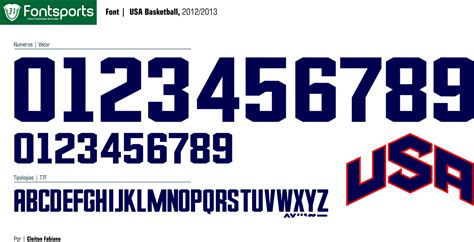
USA Basketball Font: Decoding Its Iconic Look & Style
USA Basketball Font: Decoding Its Iconic Look & StyleWhenever we talk about USA Basketball , guys, it’s not just about the incredible athletes, the dazzling dunks, or the thrilling victories that come to mind. It’s also about a distinct visual identity, and a huge part of that is the USA Basketball font style . This isn’t just any typeface; it’s a critical element that embodies the spirit, power, and prestige of one of the most dominant forces in international sports. Understanding the USA Basketball font style means delving into the design choices that contribute to its instantly recognizable appearance, making it as iconic as the jerseys themselves. It’s a style that speaks volumes, projecting strength, unity, and an unyielding competitive edge. For designers, sports enthusiasts, or anyone fascinated by brand identity, dissecting this font provides a fascinating glimpse into how typography can elevate a brand to legendary status. We’ll explore what makes this font so special, its characteristics, where you might see it, and how it contributes to the overall mystique of Team USA. Get ready to dive deep into the world of basketball typography, because the story of the USA Basketball font style is far more interesting than you might imagine. This exploration will not only satisfy your curiosity but also equip you with insights into effective branding through visual elements, especially within the dynamic realm of sports. It’s truly a masterclass in how simple lettering can convey complex ideas and powerful emotions. So, let’s break it down, piece by typographic piece. You’ll soon see that the seemingly straightforward USA Basketball font style is a carefully curated masterpiece that plays a crucial role in the team’s global appeal and undeniable presence, establishing a visual legacy as profound as its on-court achievements. We’re talking about more than just letters; we’re talking about a visual shorthand for excellence. This robust and commanding visual signature is carefully crafted to evoke a sense of national pride and athletic prowess, becoming synonymous with the team’s triumphs on the international stage. Every curve, every line, and every bold stroke in the USA Basketball font style works in concert to project an image of undeniable strength and unwavering determination, truly a testament to thoughtful design. From official merchandise to digital campaigns, the consistent application of this distinct USA Basketball font style ensures that the brand remains cohesive and impactful, reinforcing its status as a global leader in sports. This deliberate design strategy highlights the importance of visual communication in building and maintaining a powerful brand identity, showing us that typography is much more than just text – it’s a silent ambassador. We’re going to explore all aspects of this iconic visual element, leaving no stone unturned in our quest to understand its enduring appeal and impact. The journey into the USA Basketball font style will reveal how a seemingly small detail contributes to a monumental presence. It’s a compelling narrative of design meeting dominance, where the visual language is as powerful as the game itself. The USA Basketball font style is not just a choice; it’s a statement, a visual roar that echoes across courts and screens worldwide, cementing its place in the annals of sports design. We are talking about something that is deeply ingrained in the perception of the team, a crucial visual anchor for fans and competitors alike. Truly, the power of good design, especially in sports, cannot be overstated, and the USA Basketball font style stands as a shining example. This unique typographic identity communicates strength and precision, two core attributes of the team itself. It serves as a visual rallying cry, unifying fans and instilling a sense of unwavering confidence in the team’s capabilities. This deliberate choice in the USA Basketball font style reflects a deep understanding of branding and visual communication. The careful selection of typography plays an integral role in shaping public perception and reinforcing the team’s legendary status. Through its robust and unambiguous form, the USA Basketball font style conveys a message of dominance and excellence. It is a testament to the power of thoughtful design, demonstrating how a font can encapsulate the very essence of a global powerhouse like Team USA, making it instantly recognizable and deeply impactful across various media and platforms, a truly iconic basketball font .The journey into understanding the USA Basketball font style is really a deep dive into the heart of sports branding. It’s fascinating how a specific set of letterforms can evoke such a strong sense of national pride and athletic dominance. When we talk about the USA Basketball font style , we’re looking at more than just aesthetics; we’re examining a carefully crafted visual element that reinforces the team’s identity on a global stage. The consistent use of this font across jerseys, merchandise, and promotional materials ensures instant recognition and a powerful, unified message. It’s not just a detail; it’s a foundational component of their entire visual strategy, making the USA Basketball font style an undeniable pillar of their brand. Every element, from the serifs (or lack thereof) to the kerning, is designed to communicate strength, precision, and an unyielding commitment to excellence. We’re talking about an entire visual language communicated through a font, guys. It’s truly remarkable. This level of intentionality in design showcases how a visual identity can become as iconic and memorable as the team’s achievements on the court, making the USA Basketball font style a masterclass in strategic branding and visual communication. It’s a testament to the fact that every design choice, no matter how small, contributes to the overall perception and legacy of a brand. The careful thought put into selecting and implementing the USA Basketball font style highlights its importance in forging a powerful connection with fans and instilling a sense of awe in competitors. This font isn’t just decorative; it’s functional, serving to amplify the team’s message of undisputed leadership and excellence in the world of basketball. This dedication to visual consistency ensures that the USA Basketball font style remains a timeless symbol of athletic prowess and national pride, embodying the very spirit of champions. It’s a visual anchor that unites fans across generations and continents.The USA Basketball font style isn’t just about the on-court action; it’s about a complete package that includes its powerful and recognizable typography. This iconic font style, often seen in a bold, sans-serif, blocky design, immediately projects an image of strength and professionalism. The strategic use of the USA Basketball font style ensures that the brand maintains a cohesive and impactful presence, whether on official team gear, broadcast graphics, or digital platforms. It’s a silent but incredibly effective ambassador for the team, speaking volumes without uttering a single word. This typeface has been carefully selected and refined over the years to embody the spirit of American excellence and dominance in basketball. When you see that specific USA Basketball font style , you don’t just see letters; you feel the power, the tradition, and the winning mentality associated with Team USA. It’s truly a standout in the world of sports branding, a testament to how meticulous design choices can elevate an organization’s visual identity to legendary status. The clean lines and robust character shapes found within the USA Basketball font style reflect a modern yet timeless aesthetic, appealing to a wide audience while retaining a strong connection to its heritage. This balance between contemporary appeal and traditional gravitas is a hallmark of truly effective branding, making the USA Basketball font style a prime example of successful visual communication. It doesn’t scream for attention, but rather commands it through its inherent authority and clarity. This deliberate design ensures that every piece of communication carrying the USA Basketball font style reinforces the team’s unwavering commitment to quality and peak performance, guys. It’s about more than just reading; it’s about experiencing the brand’s core values at a glance. The enduring appeal of the USA Basketball font style lies in its ability to transcend mere functionality and become a symbol of aspiration and achievement. This careful attention to detail in typography demonstrates an understanding that every visual element contributes to the overall narrative of the brand, solidifying its position in the minds of fans and competitors alike. This thoughtful approach ensures the USA Basketball font style isn’t just seen, but felt, becoming an indelible part of the team’s powerful legacy and enduring appeal. It’s a critical component in shaping how the world perceives American basketball excellence. The consistency with which this USA Basketball font style is applied across all touchpoints speaks to a highly professional and strategically driven brand management, ensuring that every interaction with the brand reinforces its core message of dominance and unparalleled achievement. This is what makes the USA Basketball font style so impactful and memorable, setting a gold standard for sports typography. It is an undeniable part of their brand identity, making them instantly recognizable globally. This font truly elevates the entire visual package, ensuring that the legacy of Team USA is communicated with consistent visual strength and clarity. The USA Basketball font style is a powerful visual asset, carefully chosen to project an image of unparalleled excellence and an unyielding commitment to victory, truly a team USA font in every sense. It captures the essence of a champion, delivering a clear and compelling message of dominance and prestige, making it much more than just a set of letters; it’s a symbol of athletic greatness and national pride. This sophisticated simplicity in the USA Basketball font style resonates with fans and competitors, cementing its place as an integral part of the team’s iconic visual identity. It’s this dedication to a powerful and consistent visual language that elevates the entire brand, making the USA Basketball font style a masterclass in sports design and an enduring symbol of excellence that continues to inspire. This is iconic basketball font in its truest form. Its bold and commanding presence is no accident; it is a meticulously crafted visual statement that underscores the team’s dominance and unwavering pursuit of perfection, contributing significantly to its global recognition and admiration. We’re talking about a font that means business, a font that wins. The specific design characteristics of the USA Basketball font style are all geared towards projecting an image of strength, reliability, and precision, qualities that are paramount in the competitive world of international basketball. This emphasis on clear and powerful communication through typography distinguishes the USA Basketball font style as a benchmark for effective visual branding in sports, an exemplar of sports fonts done right.The USA Basketball font style is a masterclass in how typography can embody a brand’s essence, exuding an air of authority and athleticism that is instantly recognizable. When we talk about decoding the USA Basketball font , we’re primarily looking at its inherent characteristics: typically, it leans towards robust, condensed sans-serif typefaces. These aren’t just arbitrary design choices, guys; they’re deliberate decisions that convey specific messages. The lack of serifs (the small feet at the end of letter strokes) gives it a modern, clean, and straightforward appearance, symbolizing efficiency and directness – qualities vital in basketball. The condensed nature means the letters are slightly narrower, allowing for more text in a given space, crucial for jersey names or scoreboards, while also giving a sense of verticality and speed. The USA Basketball font style often features strong, angular cuts and bold weights, projecting power and dynamism, much like the athletes themselves. Think of the impactful, no-nonsense presence it creates; it’s all part of the strategy. It doesn’t rely on flourishes or ornate details; its strength comes from its pure, unadulterated form. This deliberate simplicity ensures maximum readability and impact, whether viewed from a distance on a court or up close on merchandise. This particular USA Basketball font style communicates professionalism and a serious commitment to excellence, reflecting the high stakes and competitive nature of international basketball. The consistency in its application across various media further solidifies this message, ensuring that every visual touchpoint reinforces the team’s strong brand identity. This makes the USA Basketball font style a quintessential example of effective basketball typography , where form perfectly meets function. It’s a prime instance of graphic design excellence, where the aesthetic choices are deeply intertwined with the brand’s core values. The letterforms themselves often have a slightly squared-off appearance, adding to that sense of stability and unwavering resolve. This distinct architectural quality makes the USA Basketball font style stand out amidst other sports fonts , giving it a unique edge. The strategic use of positive and negative space within the lettering also plays a significant role, ensuring clarity and legibility even when viewed quickly. This attention to detail in the USA Basketball font style speaks volumes about the meticulous approach Team USA takes not just in their game strategy, but also in their overall brand identity . This font isn’t just a container for information; it’s a carrier of reputation and a symbol of national pride, becoming synonymous with the team’s legacy of dominance. The visual language created by the USA Basketball font style is one of unwavering confidence and relentless pursuit of victory, making it an indispensable asset to the team’s powerful global image. It’s a font that demands respect, visually asserting the team’s prowess. This deliberate design choice underpins the team’s narrative of excellence and reinforces its standing as a leader in international basketball, creating an iconic basketball font that resonates deeply.The pursuit of the exact USA Basketball font style can be a bit of a treasure hunt, guys, because official fonts used by major organizations are often proprietary or custom-designed. This means you typically won’t find the exact font available for free public download with a simple search. However, that doesn’t mean you can’t get incredibly close and capture the essence of the USA Basketball font style for your own projects or fan art! For those looking to incorporate a similar aesthetic, the key is to look for robust, athletic, and condensed sans-serif typefaces. Many sports fonts share these characteristics. You’ll want to search for terms like